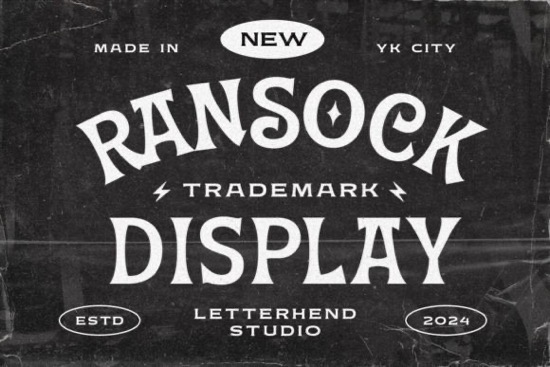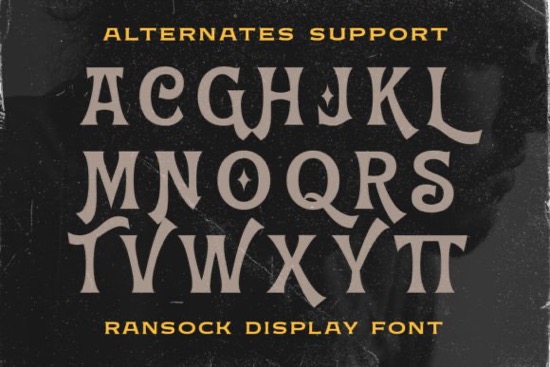
Ransock Display Font
by Letterhend Studio
Ransock Display, an elegant display serif font, exudes modernity and sophistication with its flexible strokes that offers legibility while maintaining a readable. It’s inspired by modern feels and classic looks. This font perfectly made to be applied especially in logo, and the other various formal forms such as invitations, labels, logos, magazines, books, greeting / wedding cards, packaging, fashion, make up, stationery, novels, labels or any type of advertising purpose.